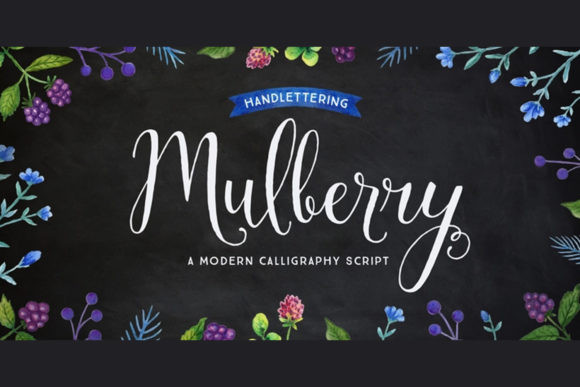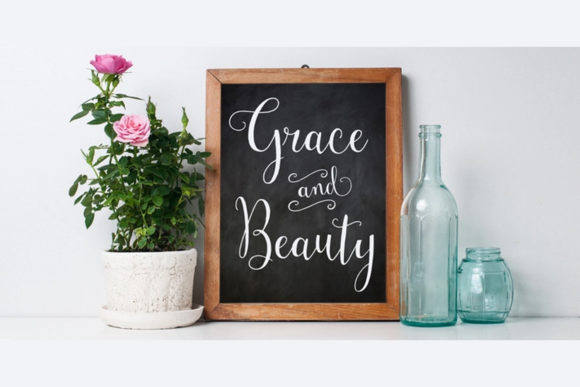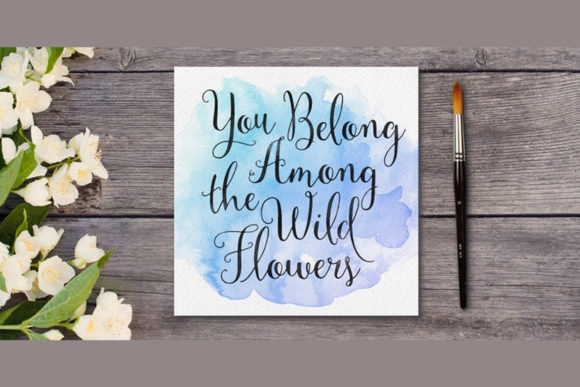
Mulberry Font
Mulberry is a magical script font carefully created with a touch of elegance. This is a beautiful combination of timeless elegance and authentic calligraphy. It features an incredibly classic style, while still keeping a friendly feel. Mulberry is the perfect font for making original and outstanding designs.